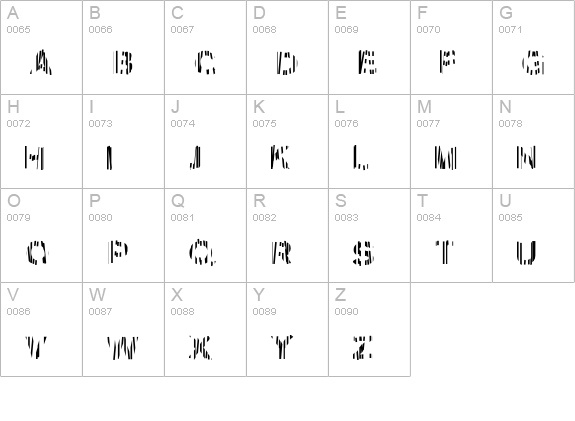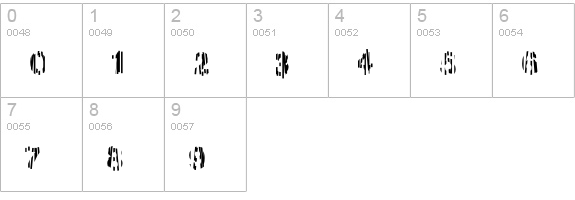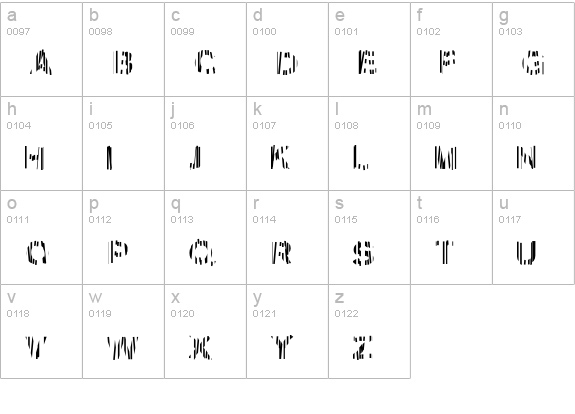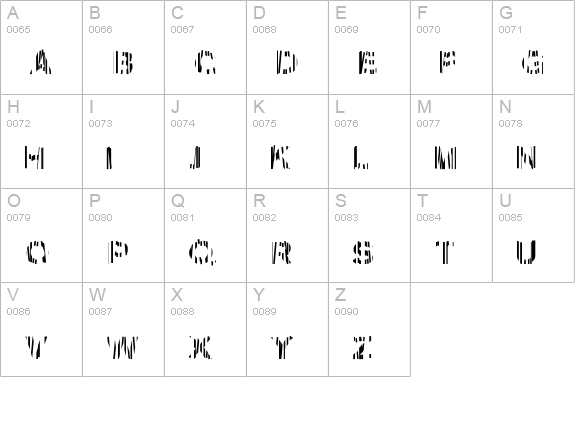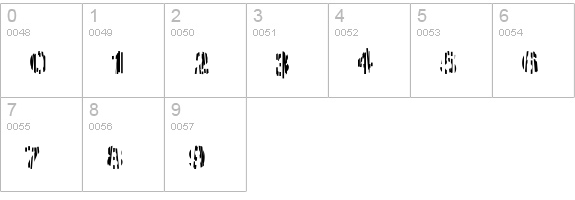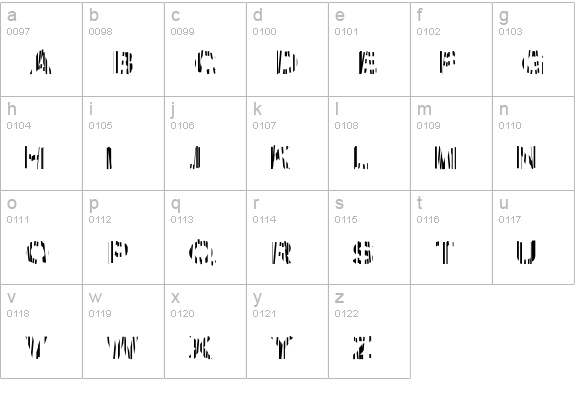
Ollie-Guilty Font Details
Introducing Ollie-Guilty font, a captivating typeface that exudes a sense of mystery and elegance. With its unique blend of sharp edges and flowing curves, Ollie-Guilty font is perfect for adding a touch of sophistication to your designs. Whether you're creating a logo, poster, or website, this versatile font is sure to make a statement. What's even better is that Ollie-Guilty font is available for free download at FontsMarket.com. Yes, you read that right - you can get your hands on this stunning font at no cost! So why wait? Elevate your projects with Ollie-Guilty font today and let your creativity shine.